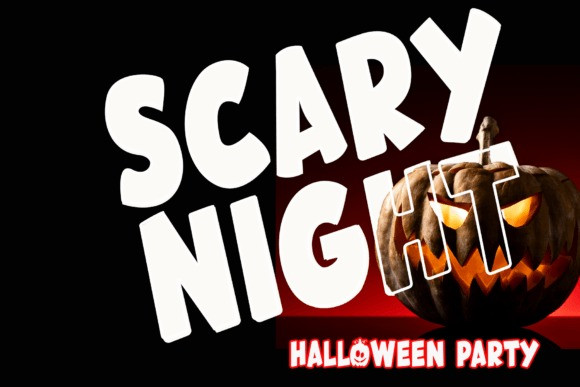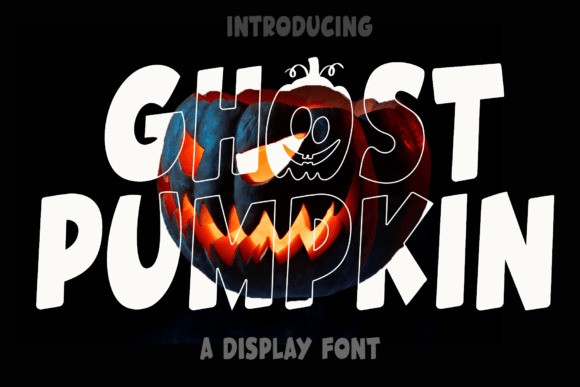
Ghost Pumpkin Typeface
Ghost Pumpkin Typeface is a delightfully spooky typeface that embodies the playful essence of Halloween. With its eerie, yet whimsical lettering, this font is perfect for adding a touch of creepy fun to your Halloween-themed designs. Whether you’re creating party invitations, haunted house flyers, or chilling social media posts, Ghost Pumpkin font will cast a spell of excitement over your text.